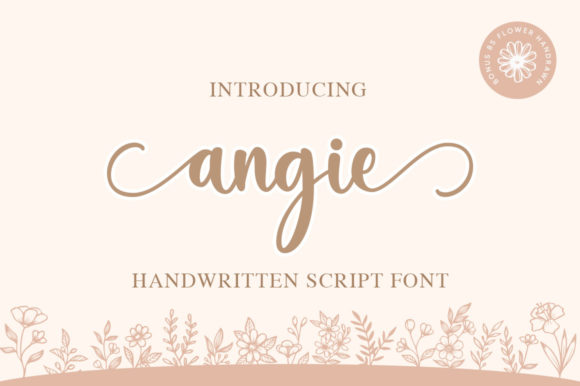
Immerse yourself in the world of Angie Font, a captivating script font that will bring a touch of elegance and charm to your creative projects. Its playful characters, reminiscent of a handwritten note, will add a personal touch to your designs, inviting readers to connect with your message on a deeper level.
With Angie Font, you'll have the power to transform ordinary words into extraordinary expressions. Its graceful curves and flowing lines evoke a sense of whimsy and joy, making it perfect for projects that aim to inspire, uplift, and engage. Whether you're designing wedding invitations, creating logos, or crafting social media graphics, Angie Font will elevate your work and leave a lasting impression.
Angie Font is not just a font; it's an experience. Its enchanting glyphs and swashes, accessible with ease through PUA encoding, allow you to add intricate details and flourishes to your designs. Experiment with different combinations to create unique and captivating compositions that will make your projects stand out from the crowd.